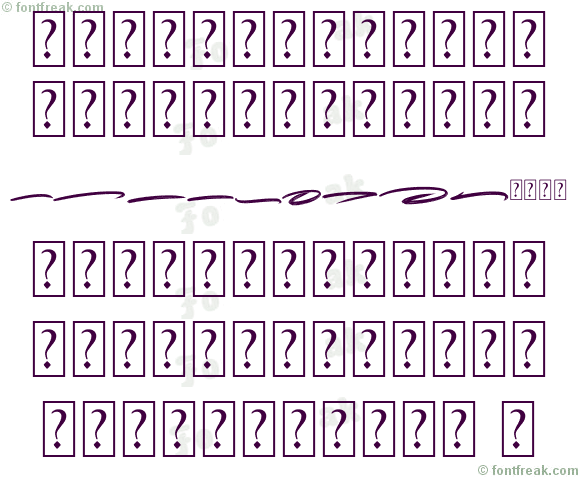
Playbrush Swash
Playbrush Tilted
About Playbrush Swash
Playbrush Swash is a captivating decorative font designed by Kong Font, characterized by its unique swash elements that evoke a sense of playfulness and creativity. This font falls into the decorative category, making it an excellent choice for projects that require a touch of whimsy and flair. The visual characteristics of Playbrush Swash include a varied stroke weight that adds depth and interest, along with graceful, sweeping curves that interlace seamlessly to create an elegant yet dynamic appearance. The spacing is thoughtfully designed to ensure clarity while maintaining a lively rhythm, making it visually appealing for both titles and body text.
Ideal use cases for the Playbrush Swash font include wedding invitations, where its stylish flair can enhance the overall theme; movie posters, which benefit from eye-catching typography that draws attention; restaurant menus, where the font can add an inviting, cheerful tone; and promotional materials for creative events or businesses looking to capture a youthful audience. This font is particularly appealing to graphic designers, small business owners, and content creators seeking to inject personality into their projects.
The Playbrush Swash font free download offers an accessible option for those wanting to elevate their design work without financial constraints. Its vibrant and playful nature allows it to stand out among more traditional typefaces, making it a versatile addition to any designer's toolkit. Whether used for digital or print applications, Playbrush Swash brings a joyful energy that can transform ordinary text into a work of art, ensuring that your message is not only seen but also felt.